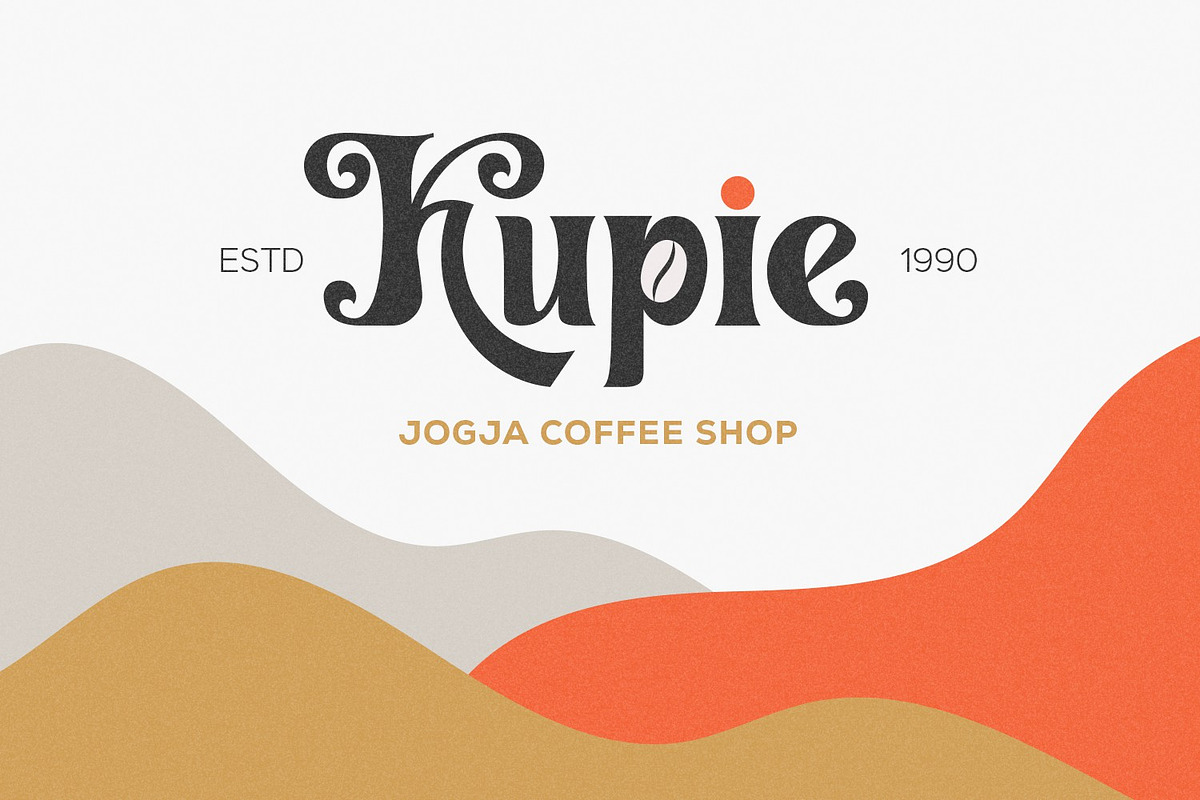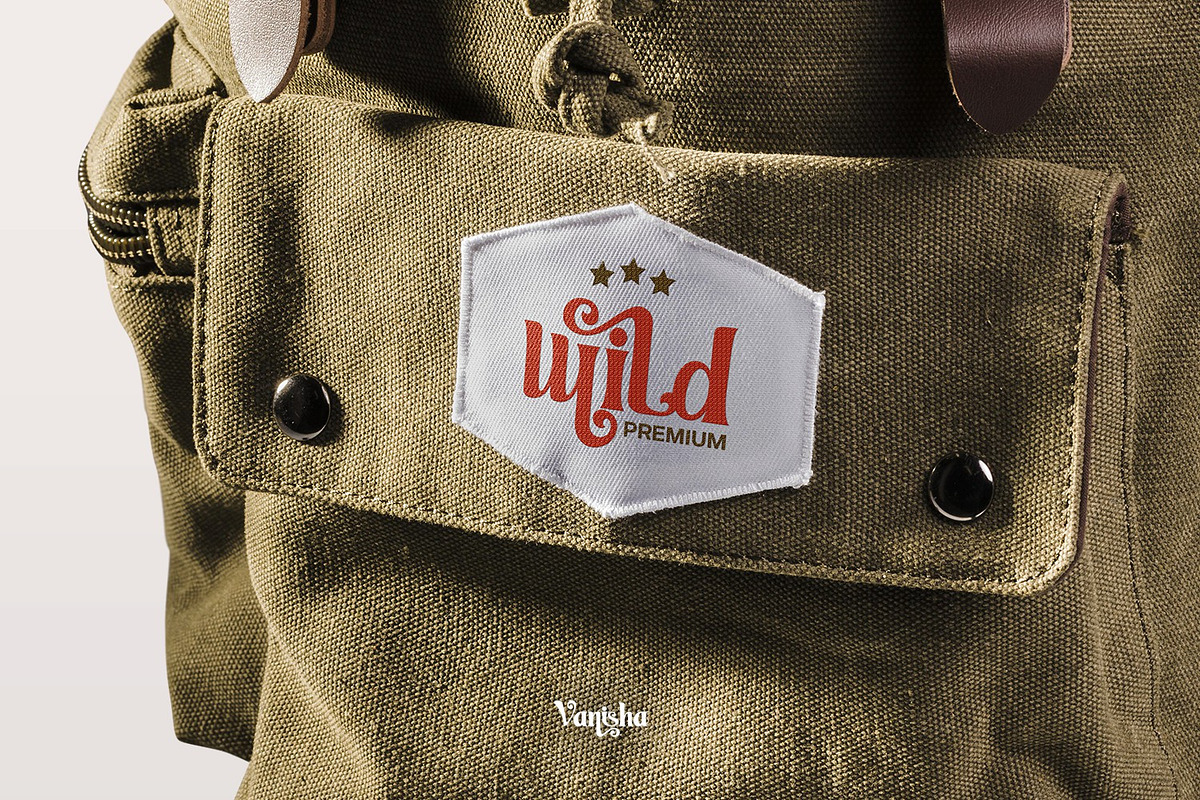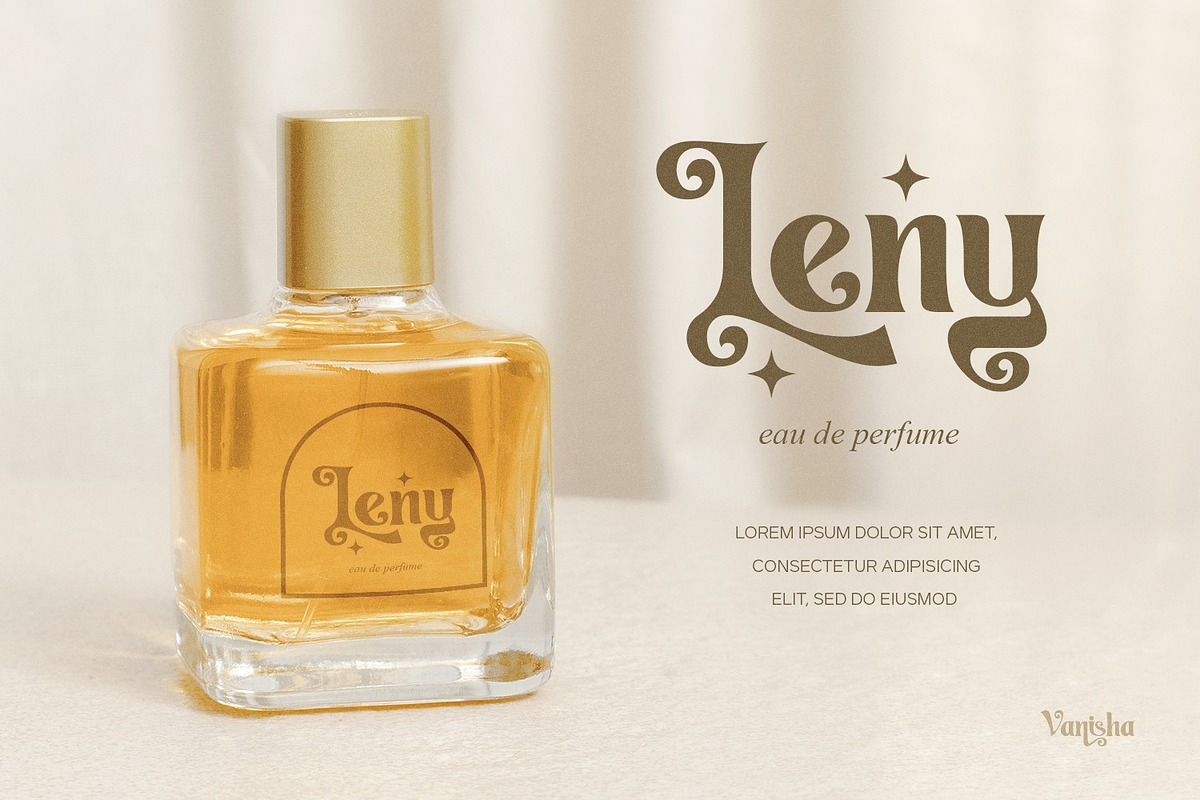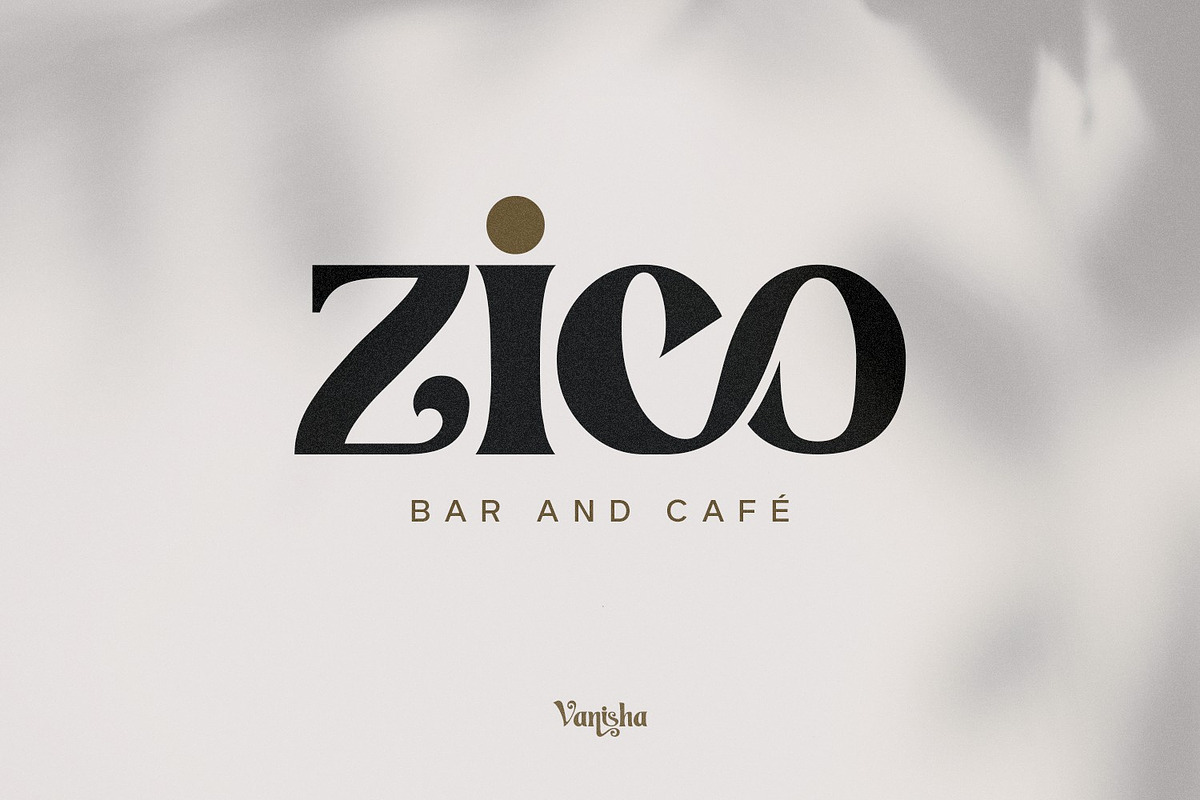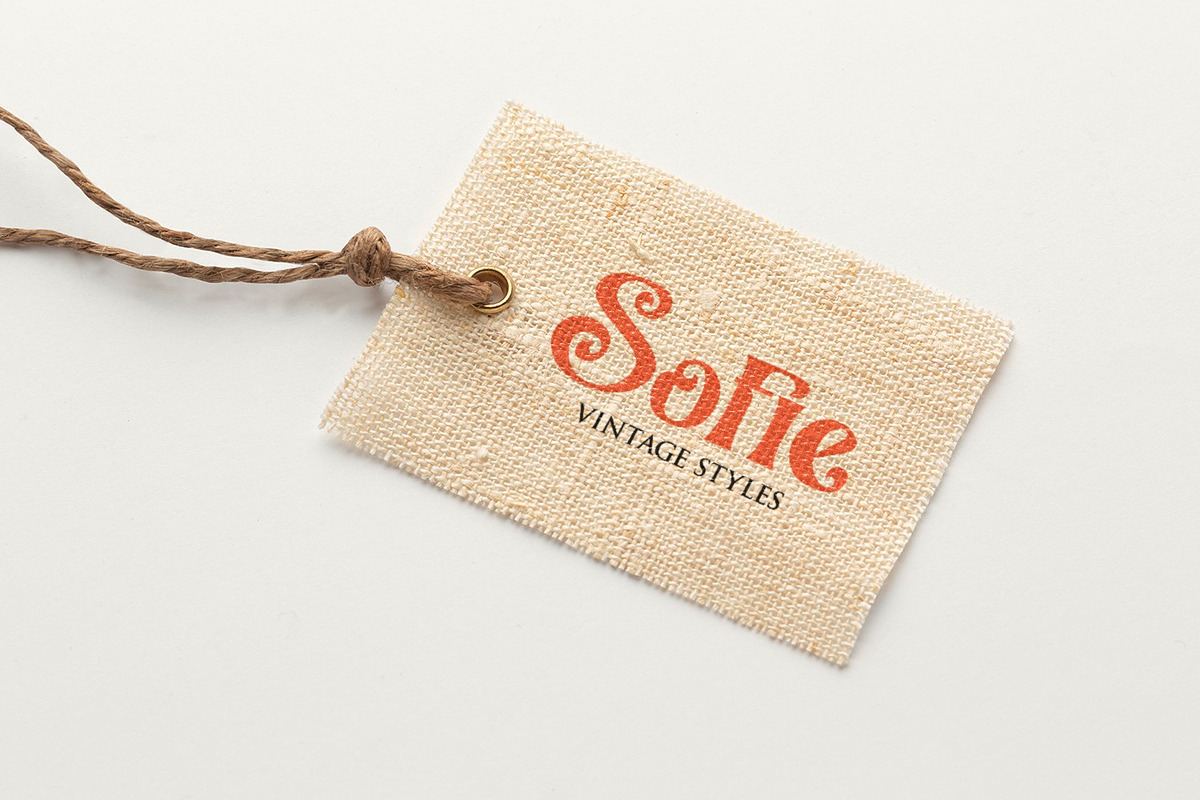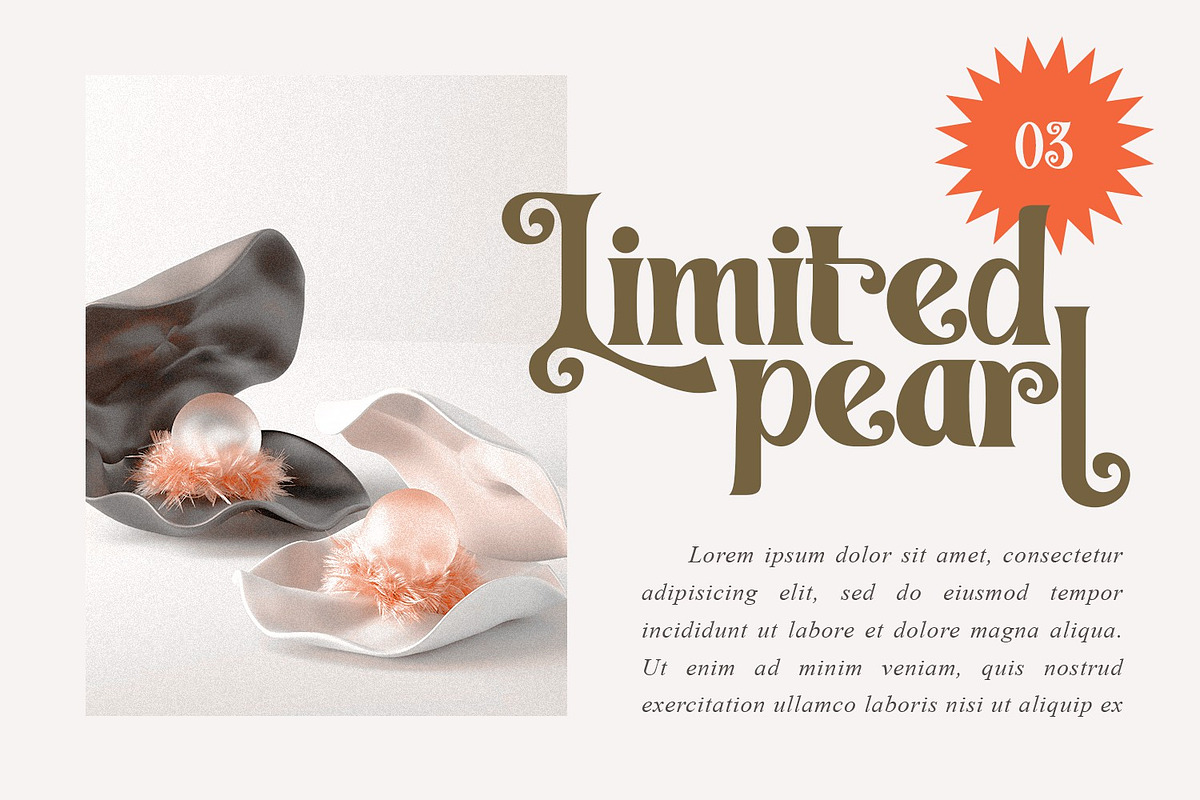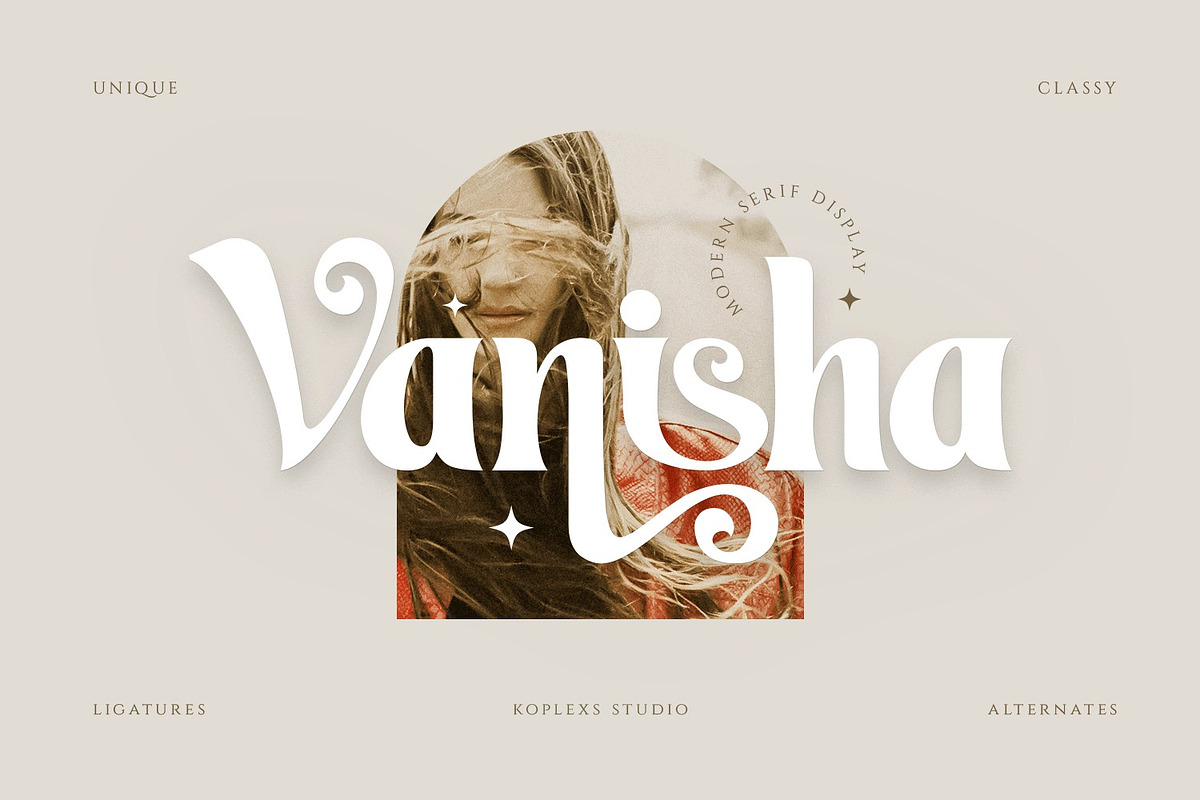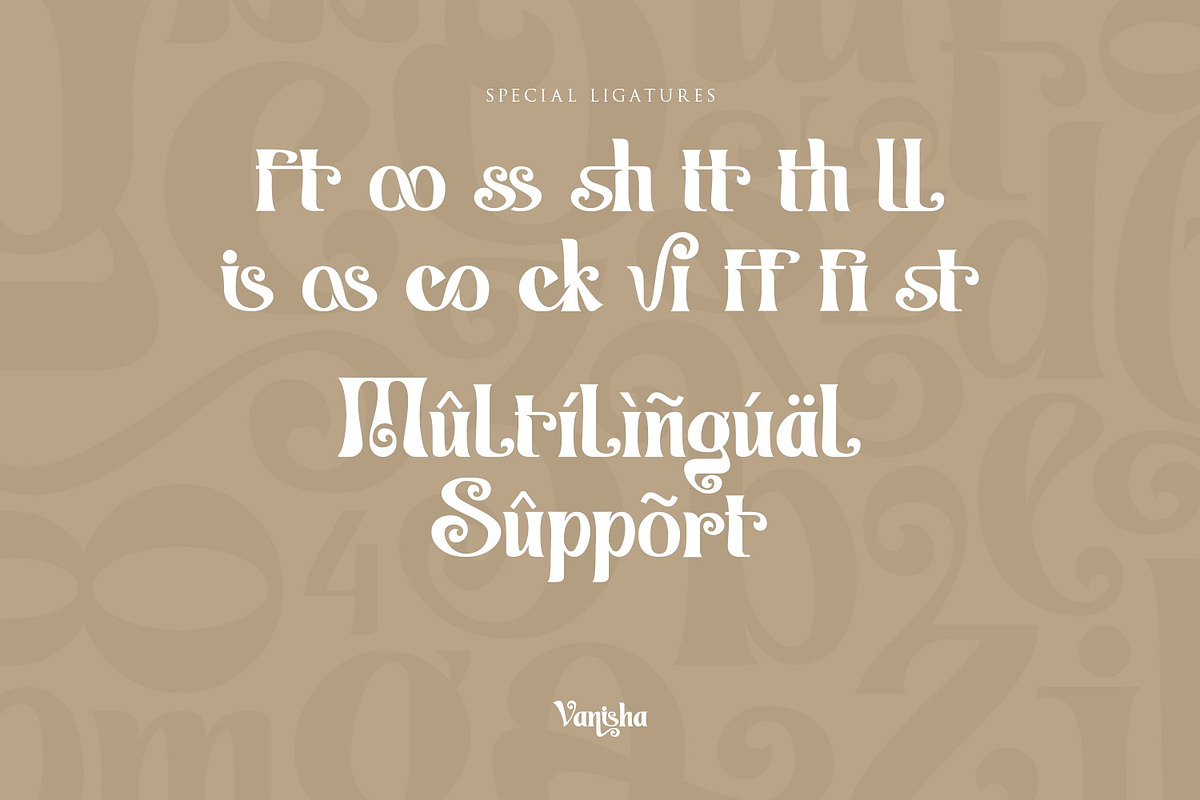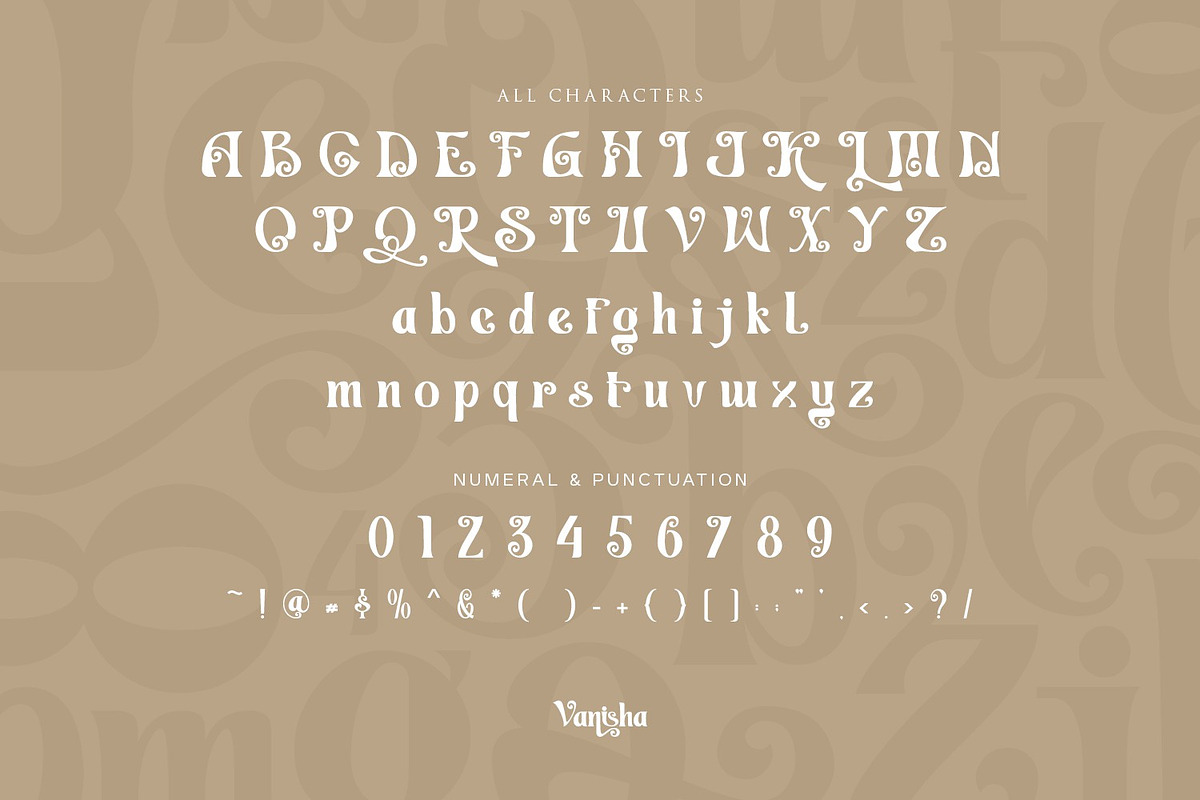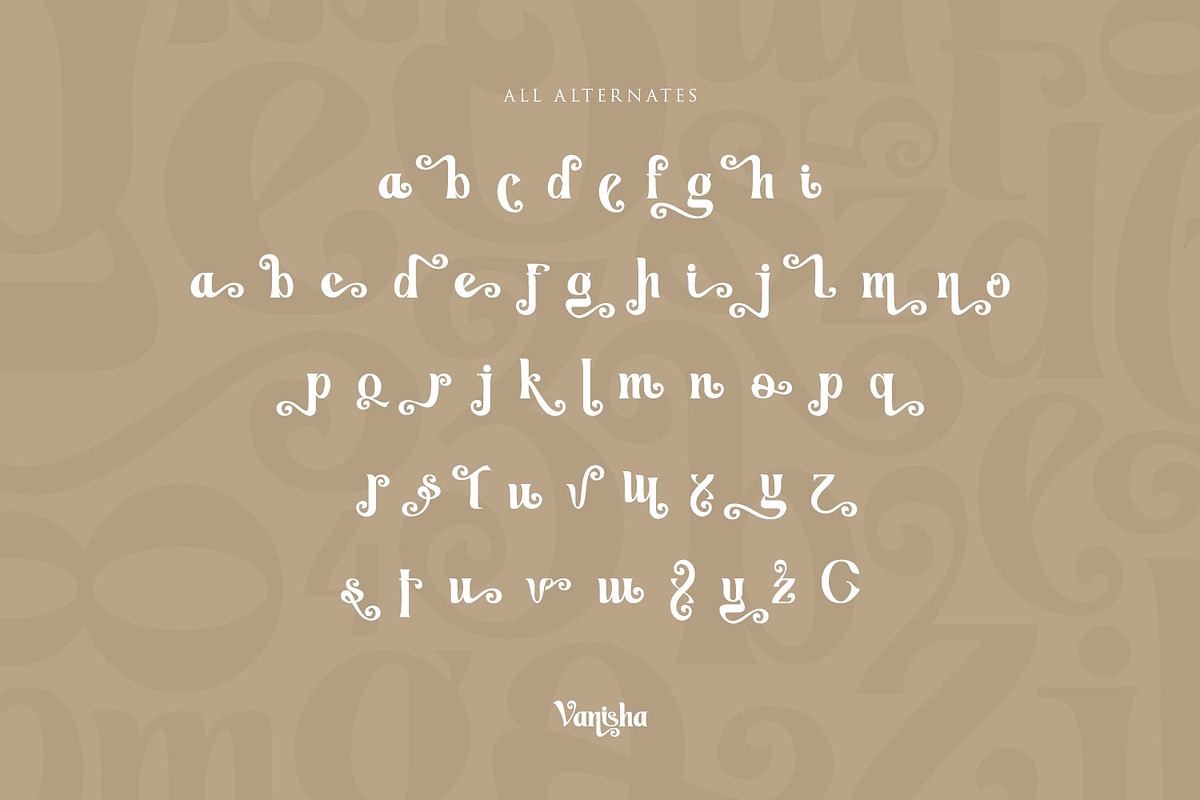
Vanisha - Modern Serif Display
Vanisha - Modern Serif Display Font
Vanisha is a Modern Serif Display font with beautiful ligatures, tons of special alternative glyphs, ornament and multilingual support. It's a very versatile font that works great in large and small sizes.
Vanisha - Modern Serif Display a very versatile font, covering a wide range project types, from branding projects, Logo design, Clothing Branding, product packaging, magazine headers, to wedding invitations, to branding, poster design and so much more.
- Ligatures Features
- Support for 63 languages